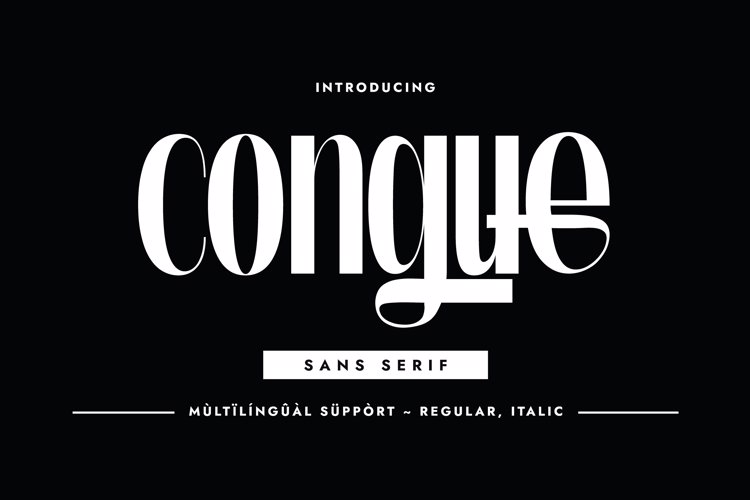
congue Font
๐จ Font Name: Congue by Minimalist Art Studio
๐จ Font Description: Congue is a high-contrast sans serif with multilingual supportโideal for fashion branding, editorial drama, and luxury packaging.
โ Complete Latin set + multilingual diacritics
โ Alternates, stylistic sets & ligatures
โ Numbers, small caps, and extended punctuation
โ Bonus italics and family styles